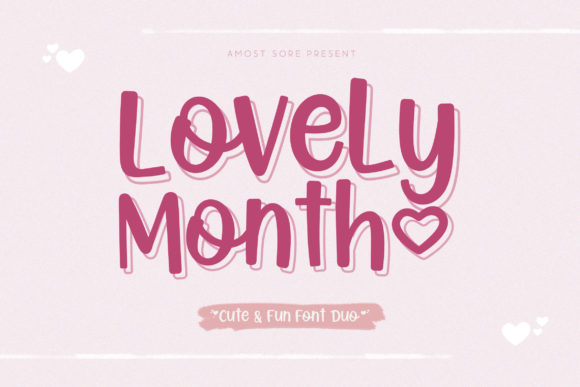
Unleash the charm with Lovely Month Font – an exquisitely handwritten font family that captures the essence of creativity and artistry. Step into a world of imagination and bring your artistic visions to life. Whether you're designing captivating logos, enchanting invitations, or expressing yourself digitally, Lovely Month Font is the perfect companion for your creative endeavors.
Immerse yourself in the world of Lovely Month Font, a script font brimming with personality and versatility. It's the perfect choice for adding a touch of elegance and charm to your digital creations. With its beautiful curves and flowing strokes, Lovely Month Font is a feast for the eyes. Discover endless possibilities as you explore breathtaking designs and let your creativity shine through.
Express your individuality with Lovely Month Font – the ultimate font for Instagram. Share your unique style and captivate your audience with visually stunning posts and stories. From lifestyle blogs to fashion inspiration, Lovely Month Font adds a touch of sophistication and charm to your visual content. Make a statement and leave a lasting impression with every post.
Experience the joy of crafting with Lovely Month Font – a font designed to make your DIY projects shine. Effortlessly create personalized invitations, heartfelt cards, and eye-catching home décor items. Let your creativity flow as you transform ordinary materials into extraordinary masterpieces. With Lovely Month Font, the possibilities are endless.
Let your artistic flair soar with Lovely Month Font – the perfect choice for calligraphy enthusiasts. Explore the art of beautiful lettering and create stunning works of art. Whether you're designing wedding invitations, crafting personalized gifts, or simply expressing your love for the written word, Lovely Month Font will elevate your calligraphy skills to new heights.